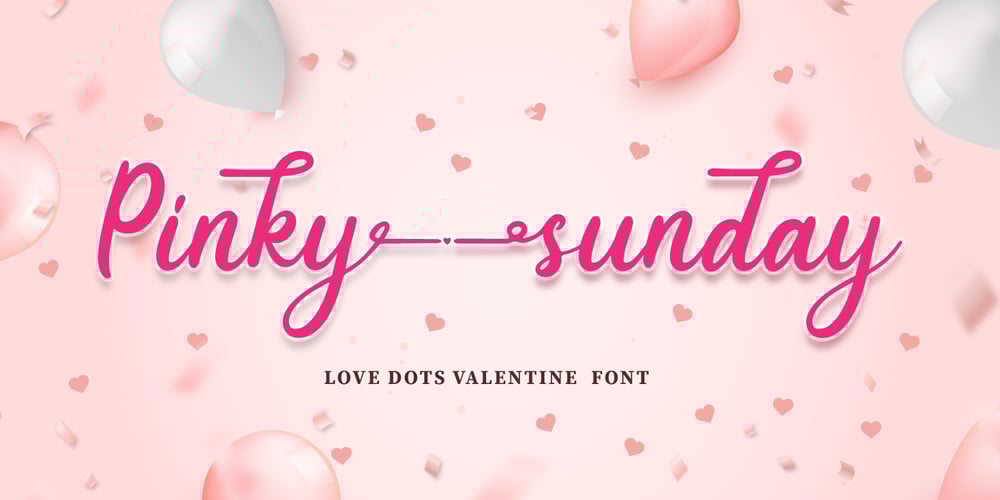
Pinky Sunday Font Family was designed by Fadli Ramadhan Iskandar and published by Attype Studio. Pinky Sunday contains 1 styles and family package options. Pinky Sunday is a Script Vintage font with stylistic set and alternates. Combine Pinky Sunday stylistic set to get amazing letterform!Fall in love with its incredibly versatile style and use it to create spectacular designs!Pinky Sunday is perfect for branding, logo, invitation, quotes, apparel design, product packaging, merchandise, game titles, cute style design, Book/Cover Title and more.What’s Included :- Beginning & Ending Swash- Multilingual Support